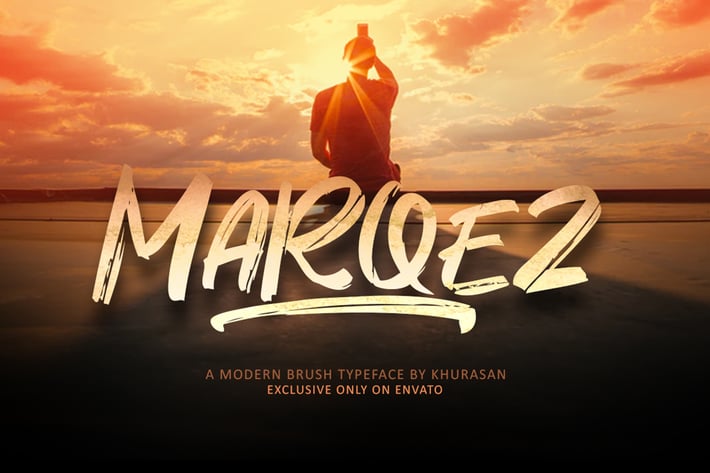
Marqez Brush Font
The Marqez is a fresh handwritten font brush, elegant and vintage feel character set. The Marqez font includes a full set capital and lowercase letters, as well as multi-lingual support, swashes, numerals, & punctuation. The Marqez font exclusive only in envato web.
Numeral & punctuation
PUA Encoded Characters
Multilingual support for; ä ö ü Ä Ö Ü ß ¿ ¡ & more